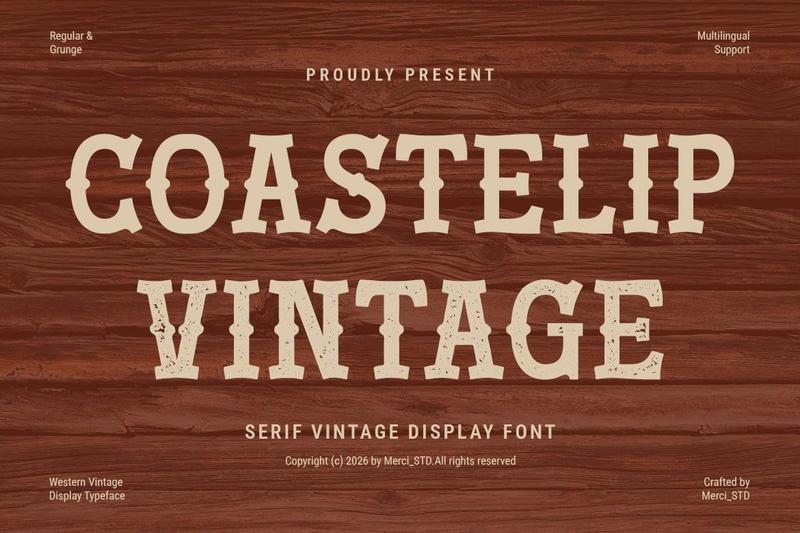
Coastelip is a western serif display font inspired by classic vintage signage and old frontier aesthetics. With bold serif shapes and textured details, it works perfectly for retro branding, rustic packaging, western-themed projects, posters, beverage labels, and heritage-inspired designs.
* Unique Hand-Drawn Style